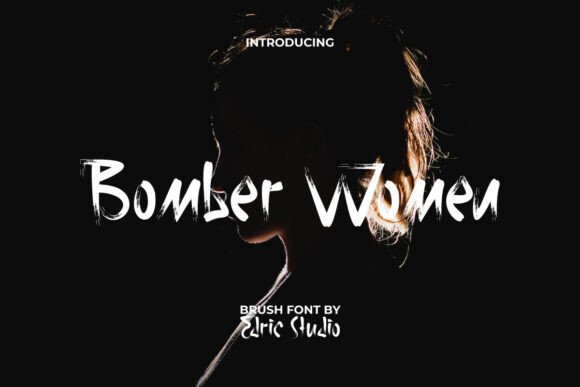
Bomber Women Font: Adding a Touch of Artistic Flair to Your Designs
In the world of typography, fonts play a crucial role in conveying the tone and personality of a design. With the numerous font options available, it can be challenging to find the perfect one that adds a unique touch to your project. However, if you’re looking for a stylish and artistic font that can elevate your designs, look no further than the Bomber Women Font.
What is Bomber Women Font?
Bomber Women Font is a stylish dry brush font that boasts a casual and artistic look. Its letters appear hand-painted, giving off a unique and expressive feel that’s perfect for designs that require a fun and bold touch. This font is ideal for a variety of projects, including posters, invitations, social media graphics, and more.
Key Features of Bomber Women Font
The Bomber Women Font has several key features that make it an excellent choice for designers:
- Hand-painted look: The font’s letters appear hand-painted, giving it a unique and artistic feel.
- Dry brush effect: The font has a dry brush effect that adds a casual and laid-back touch to your designs.
- Fun and bold: The font is perfect for designs that require a fun and bold touch, making it ideal for posters, invitations, and social media graphics.
- Versatile: The font can be used for a variety of projects, from digital designs to print materials.
Uses of Bomber Women Font
The Bomber Women Font is a versatile font that can be used for a wide range of projects, including:
- Posters: The font is perfect for creating eye-catching posters that require a bold and attention-grabbing title.
- Invitations: The font’s artistic and casual look makes it ideal for creating unique and stylish invitations for events and parties.
- Social media graphics: The font can be used to create engaging social media graphics that require a fun and bold touch.
- Logos and branding: The font can be used to create unique and memorable logos and branding materials.
Benefits of Using Bomber Women Font
Using the Bomber Women Font in your designs offers several benefits, including:
- Unique and artistic look: The font’s hand-painted look and dry brush effect give it a unique and artistic feel that sets it apart from other fonts.
- Easy to read: Despite its artistic look, the font is easy to read, making it perfect for designs that require a bold and attention-grabbing title.
- Versatile: The font can be used for a wide range of projects, from digital designs to print materials.
- Time-saving: The font’s bold and attention-grabbing look means you can create stunning designs in less time.
Tips for Using Bomber Women Font
To get the most out of the Bomber Women Font, here are some tips to keep in mind:
- Use it for headlines: The font’s bold and attention-grabbing look makes it perfect for headlines and titles.
- Experiment with colors: The font’s artistic look lends itself well to bright and bold colors, so don’t be afraid to experiment.
- Pair it with other fonts: The font can be paired with other fonts to create a unique and visually appealing design.
- Use it for digital and print designs: The font can be used for both digital and print designs, making it a versatile addition to your font collection.
In conclusion, the Bomber Women Font is a stylish and artistic font that’s perfect for designs that require a fun and bold touch. Its hand-painted look and dry brush effect give it a unique and expressive feel that’s sure to elevate your designs. With its versatility, ease of use, and bold and attention-grabbing look, this font is a must-have for any designer looking to add a touch of artistic flair to their work.
Here are some frequently asked questions about the Bomber Women Font:
- What is the Bomber Women Font?: The Bomber Women Font is a stylish dry brush font that boasts a casual and artistic look.